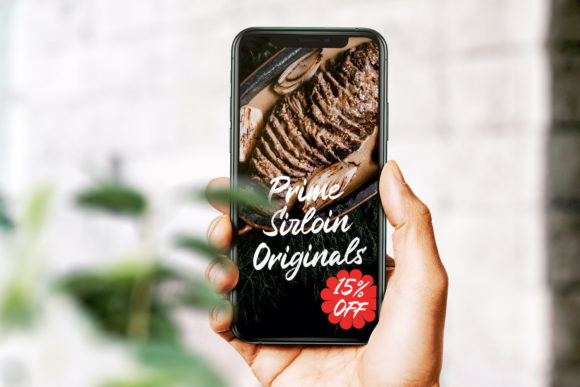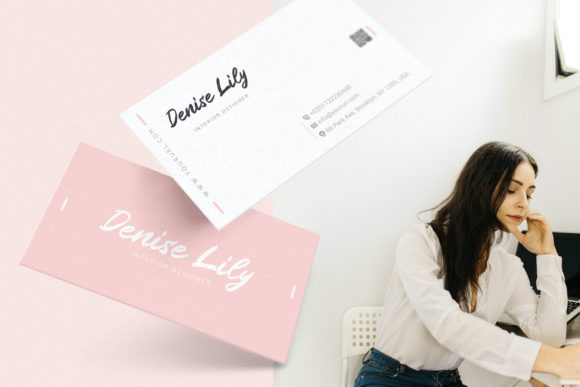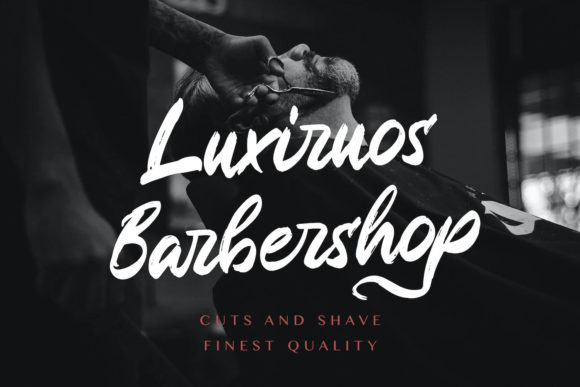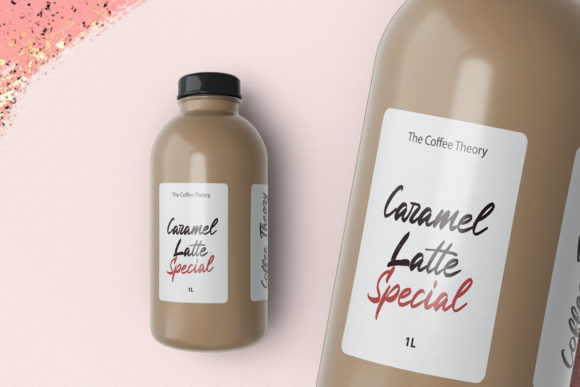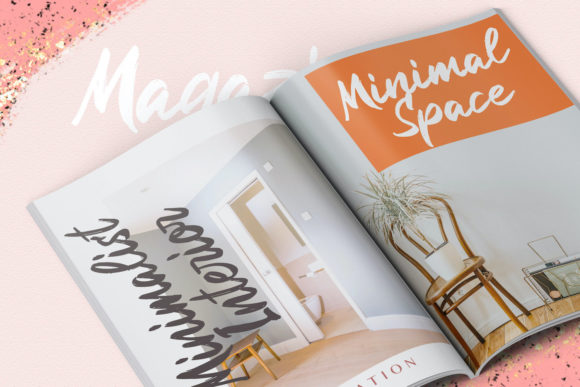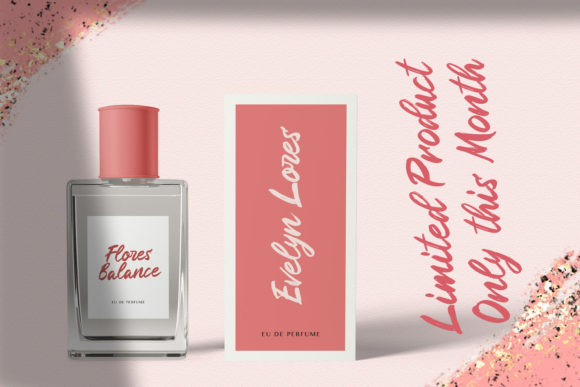
Introduction to Rugani Payne Font Font
Fonts play a crucial role in design, and the Rugani Payne Font font is a typeface that brings both character and versatility to any project. Whether you’re working on a branding project, a website, or a print design, the Rugani Payne Font font offers a unique style that can elevate your work.
Rugani Payne is a textured hand brush handwritten font.
Get inspired by its unique and beautiful style and add it to your favorite designs This font is PUA encoded which means you can access all of the glyphs and swashes with ease.
Key Features of Rugani Payne Font Font
Why Choose Rugani Payne Font Font?
The Rugani Payne Font font is more than just a typeface – it’s a design tool that helps you communicate your message with style and clarity. Its unique character set and versatile design make it suitable for a wide range of applications, from elegant invitations to bold headlines.
With its carefully crafted letterforms and balanced proportions, the Rugani Payne Font font ensures readability and visual appeal across all mediums.
What makes Rugani Payne Font font special?
The Rugani Payne Font font stands out with its unique design, exceptional readability, and versatility across various design applications.